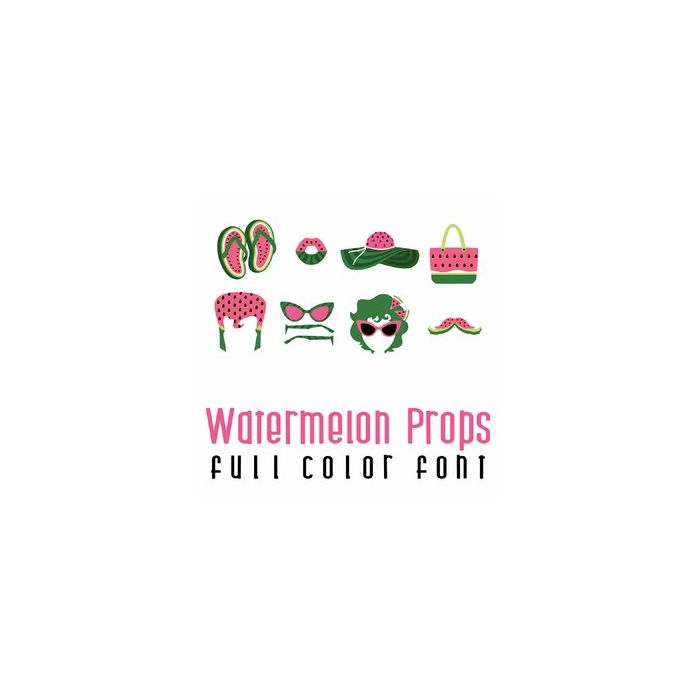
This adorable full color doodlebat font features fun watermelon themed photo props. Perfect for cards, crafts, gifts, decor, scrap book pages, planner stickers and more!